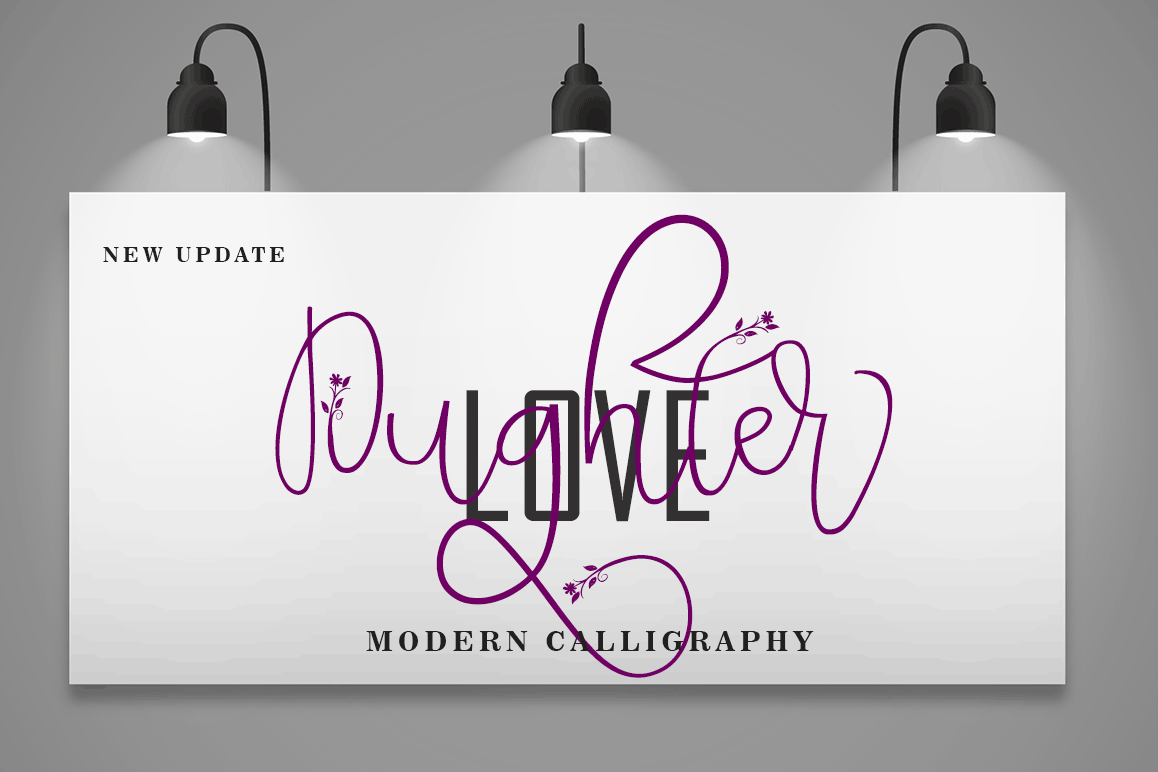
Dughter
Dughter Modern Calligraphy. This font was designed by handwriting, and it has a modern and unique forms of calligraphy, the writing style is very natural.The Features of this fonts is;Standart ligatures Stylistic Alternates Contextual Alternates Stylistic sets File font Dughter Include; Dughter OTF Dughter TTF Dughter font Web Dughter PUA Unicode (Private Use Areas) Programs that support in this font is a Photo Shop, Adobe Illustrator, Adobe Indesign, Corel Draw and Microsoft Office.Can be used for various purposes.such as headings, logos, wedding invitation, t-shirt, letterhead, signage, lable, news, posters, badges etc. To enable the OpenType Stylistic alternates, you need a program that supports OpenType features such as Adobe Illustrator CS, Adobe Indesign & CorelDraw X6-X7.